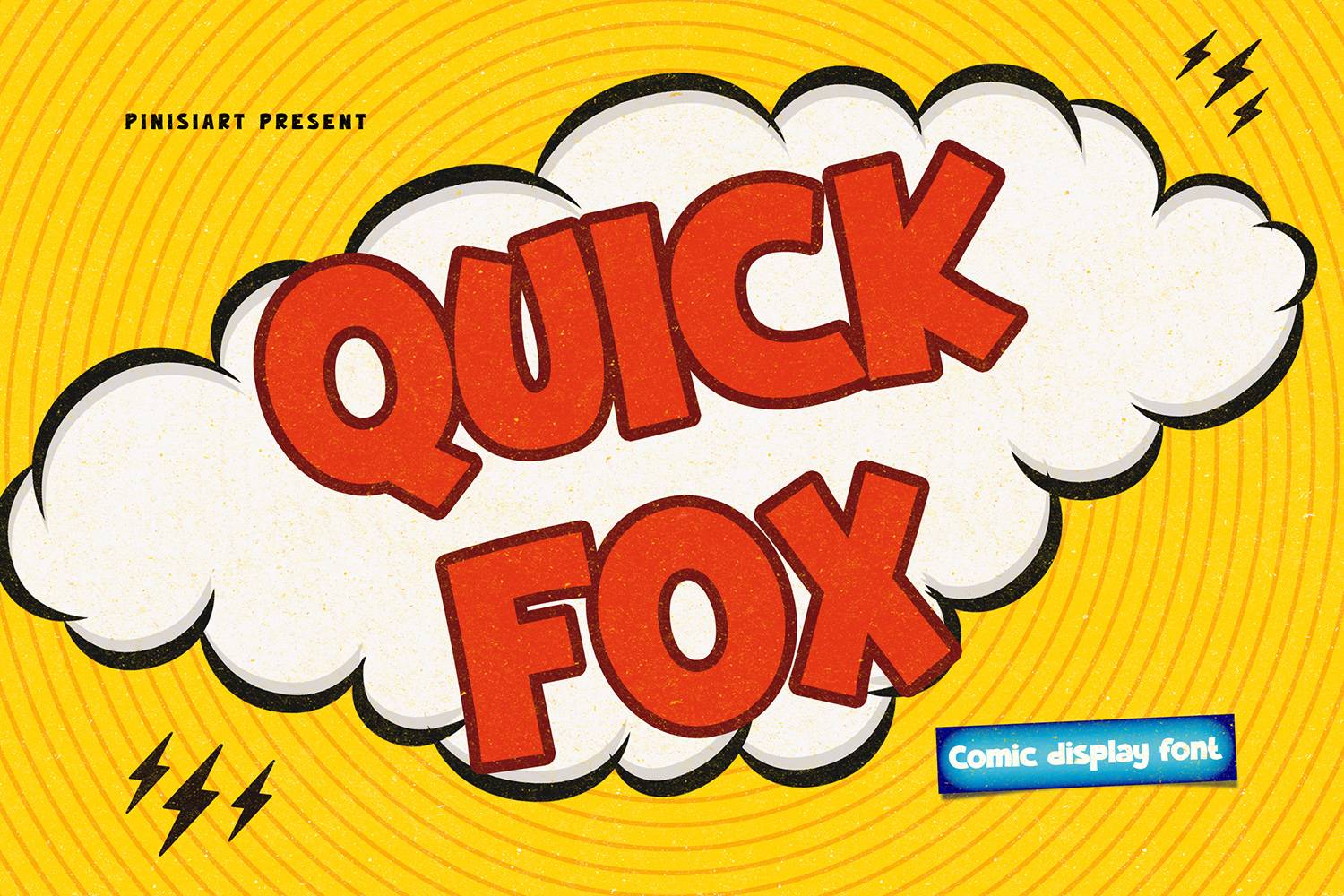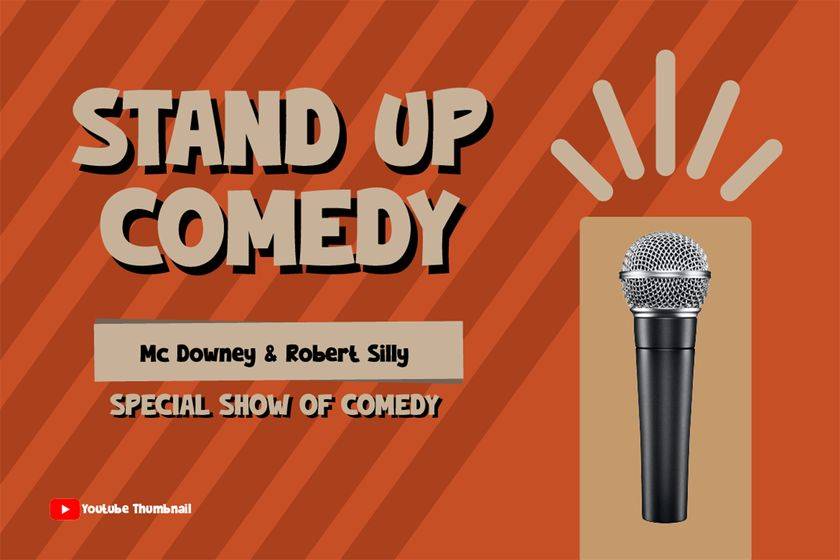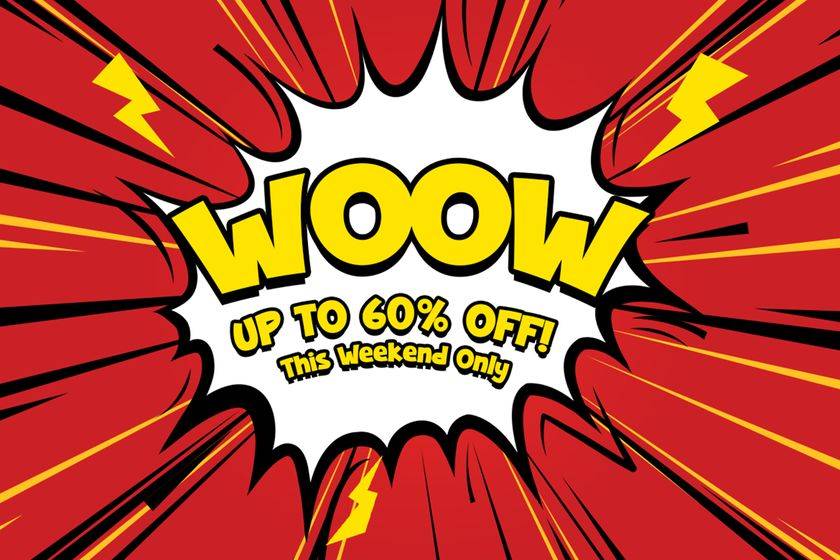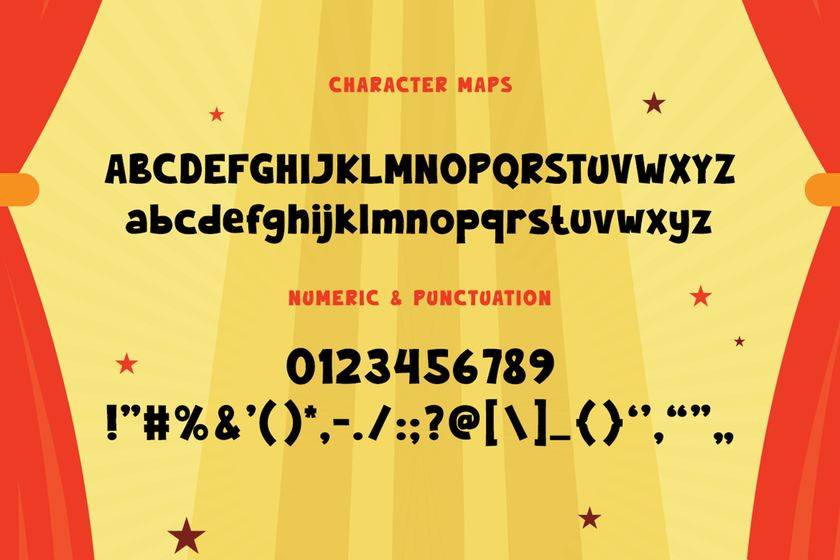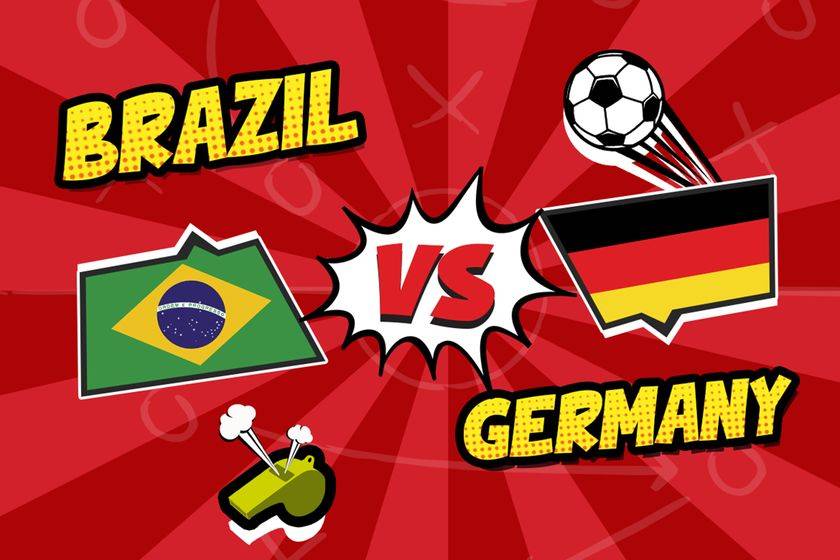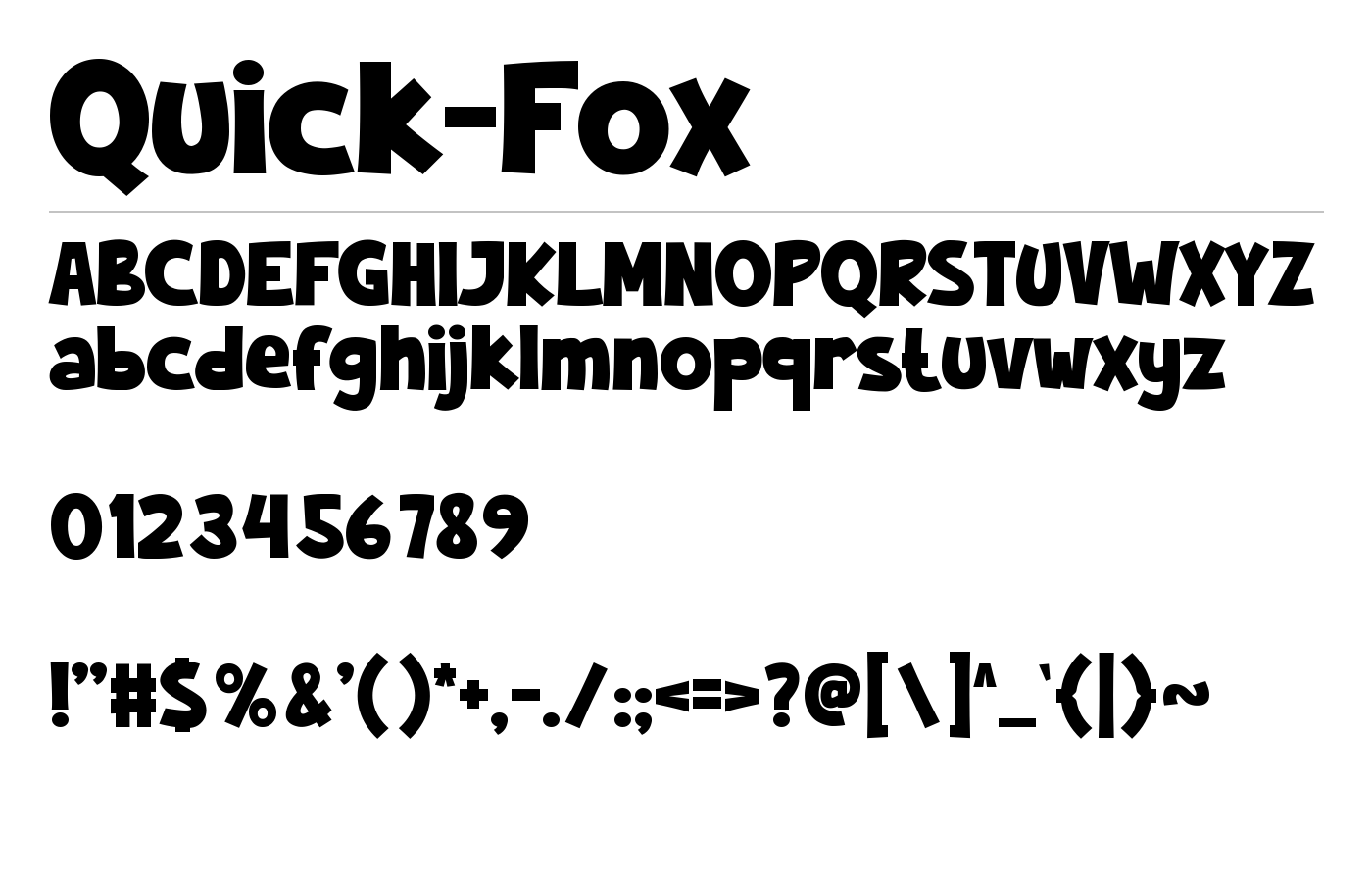
Quick Fox is a bold, playful sans serif font with a quirky personality, featuring slightly irregular, chunky letterforms that convey energy and fun. Its wide, solid shapes combined with an informal, hand-crafted feel make it perfect for lively headlines, posters, and branding that aims to be approachable and eye-catching. This font works wonderfully in contexts where a youthful, friendly vibe is desired, adding a unique charm to creative projects and casual designs.
Quick Fox Font
About Quick Fox Font